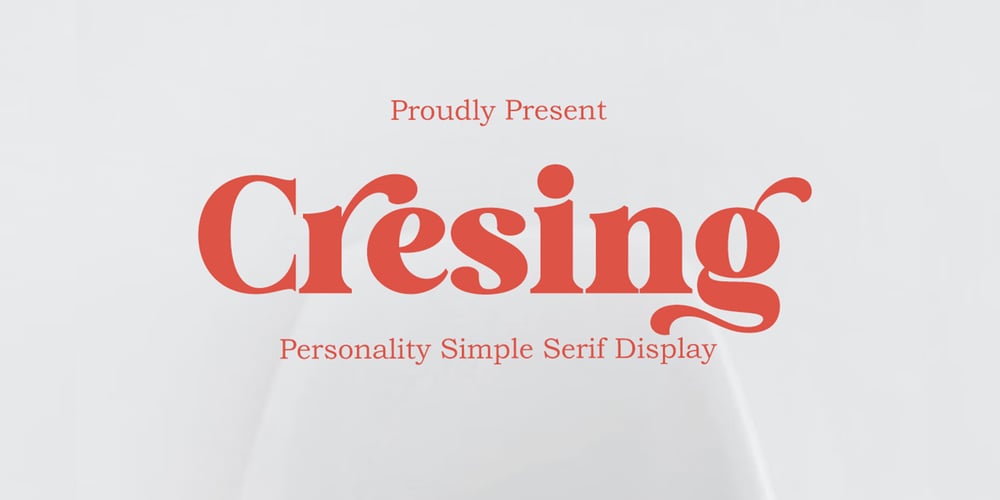
Cresing Font Family was designed by khaidir and published by Gatype. Cresing contains 1 styles and family package options. Introducing the newest font Cresing is perfect for branding, poster design, t-shirts, invitations, designs for kids, and editorial designs. It comes with many styles, including fasteners. OpenType features include style sets, character variants, initial and final forms, and multilingual support.Important information:To access the alternative, you must have access to an older version of Photoshop to copy/paste the glyph from the included PSD, OR the Glyph Panel, which can be found in Photoshop CC or any Version of Adobe Illustrator.Thank youMore about this source text Source text is needed to get additional translation informationSend feedbackSide panel